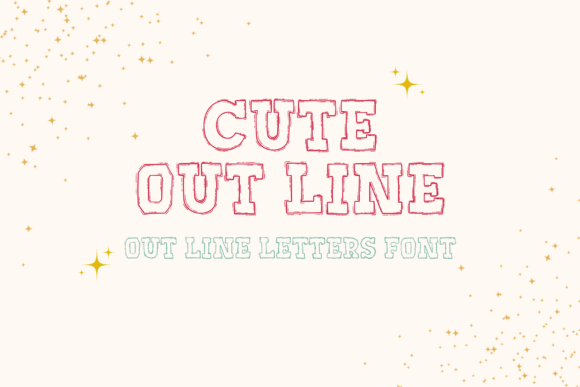
Cute Outline Font: Add a Fun Touch to Your Designs
The Cute Outline font is a delightful and playful handwritten display font that can add a fun touch to various designs. Its cute and charming appearance makes it ideal for crafts, digital design, presentations, wedding invitations, cards, and other creative projects. In this article, we’ll explore the features and uses of the Cute Outline font, and how it can elevate your designs.
What is Cute Outline Font?
Cute Outline font is a type of handwritten display font that features a unique outline style. Its design is characterized by a playful and whimsical appearance, making it perfect for projects that require a fun and lighthearted touch. The font’s outline style gives it a distinctive look that sets it apart from other fonts.
Key Features of Cute Outline Font
- Handwritten display font: Cute Outline font is a handwritten display font that mimics the look of handwritten text.
- Outline style: The font features a unique outline style that gives it a distinctive appearance.
- Cute and fun: The font’s design is playful and charming, making it perfect for projects that require a fun touch.
- Versatile: Cute Outline font can be used for various design projects, including crafts, digital design, presentations, and more.
Uses of Cute Outline Font
Cute Outline font is a versatile font that can be used for various design projects. Here are some of its popular uses:
Design Projects that Cute Outline Font is Ideal For
- Crafts: Cute Outline font is perfect for craft projects, such as making cards, gift tags, and other DIY crafts.
- Digital design: The font can be used for digital design projects, such as creating social media graphics, blog posts, and website headers.
- Presentations: Cute Outline font can add a fun touch to presentations, making them more engaging and visually appealing.
- Wedding invitations and cards: The font’s playful and charming appearance makes it perfect for wedding invitations, cards, and other stationery.
- School projects: Cute Outline font is ideal for school projects, including teacher and student resources, worksheets, and educational materials.
- Comic book style: The font’s playful appearance makes it perfect for comic book-style designs, including graphic novels and cartoon-style illustrations.
- Game online: Cute Outline font can be used for online games, including game titles, buttons, and other UI elements.
- Love shirts: The font’s fun and playful appearance makes it perfect for designing love shirts, including Valentine’s Day gifts and romantic messages.
- Posters: Cute Outline font can be used for creating posters, including movie titles, event posters, and advertising materials.
- Movie titles: The font’s distinctive appearance makes it perfect for movie titles, including film posters and credits.
Benefits of Using Cute Outline Font
Using Cute Outline font can bring several benefits to your designs. Here are some of the advantages of using this font:
Why Choose Cute Outline Font?
- Adds a fun touch: Cute Outline font can add a fun and playful touch to your designs, making them more engaging and visually appealing.
- Versatile: The font can be used for various design projects, making it a great addition to your font library.
- Easy to read: Despite its playful appearance, Cute Outline font is easy to read, making it perfect for body text and headings.
- Unique appearance: The font’s outline style gives it a distinctive appearance that sets it apart from other fonts.
Tips for Using Cute Outline Font
Here are some tips for using Cute Outline font effectively in your designs:
Best Practices for Using Cute Outline Font
- Use it for headings and titles: Cute Outline font is perfect for headings and titles, where its playful appearance can make a great impact.
- Pair it with other fonts: You can pair Cute Outline font with other fonts to create a unique and visually appealing combination.
- Experiment with colors: The font’s outline style makes it perfect for experimenting with different colors and effects.
- Use it for digital and print designs: Cute Outline font can be used for both digital and print designs, making it a versatile addition to your font library.
Cute Outline font is a delightful and playful handwritten display font that can add a fun touch to various designs. Its versatile appearance makes it perfect for crafts, digital design, presentations, wedding invitations, cards, and other creative projects. With its unique outline style and easy-to-read design, Cute Outline font is a great addition to any font library.